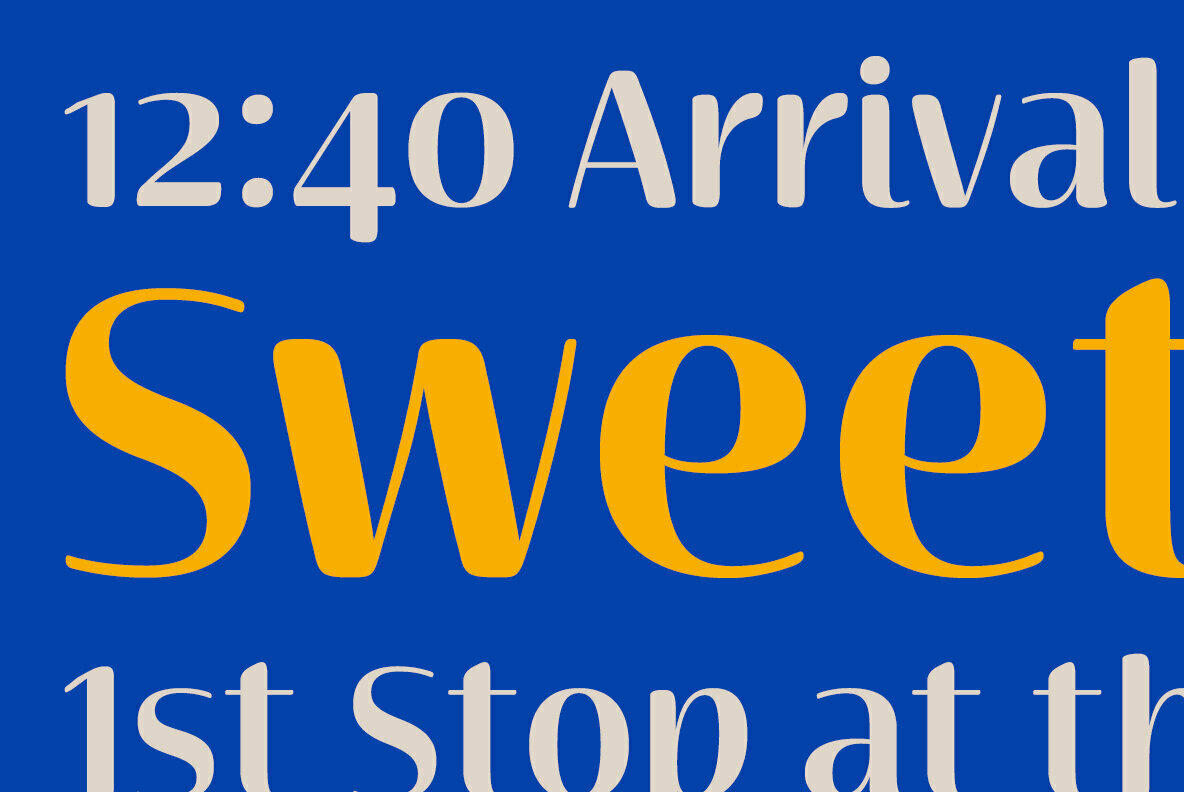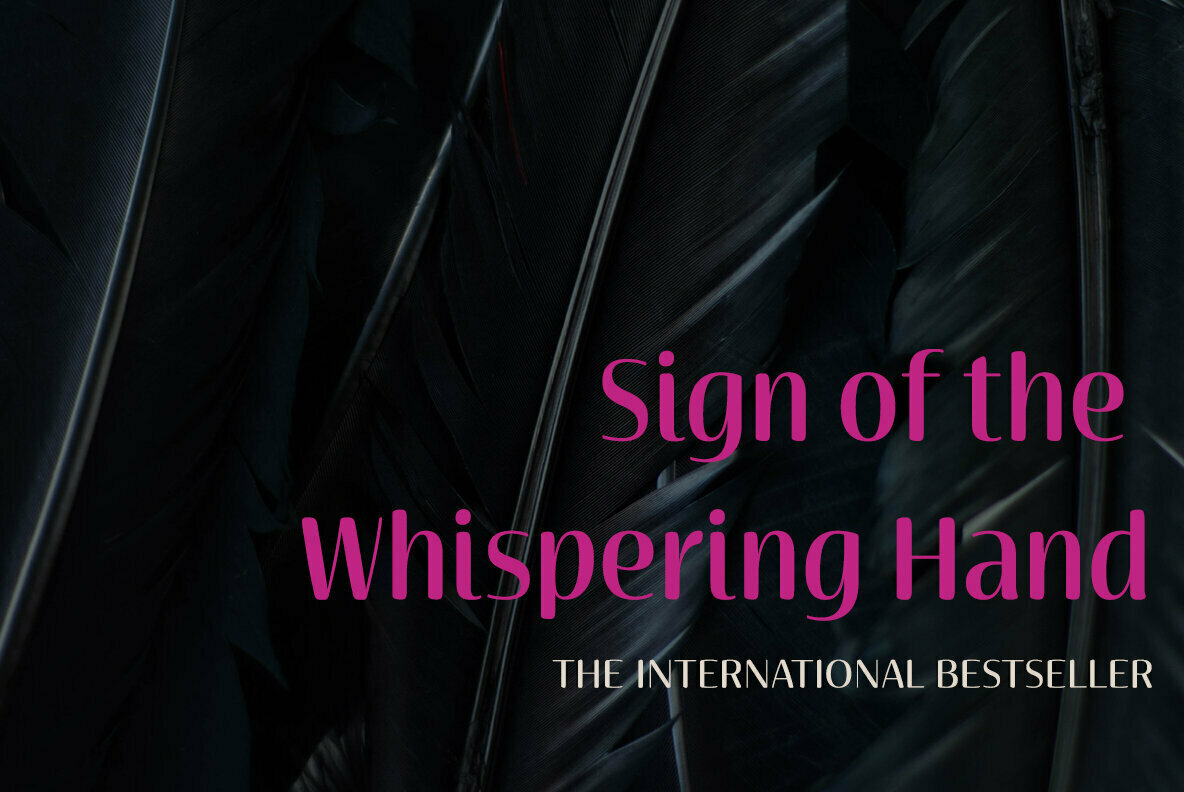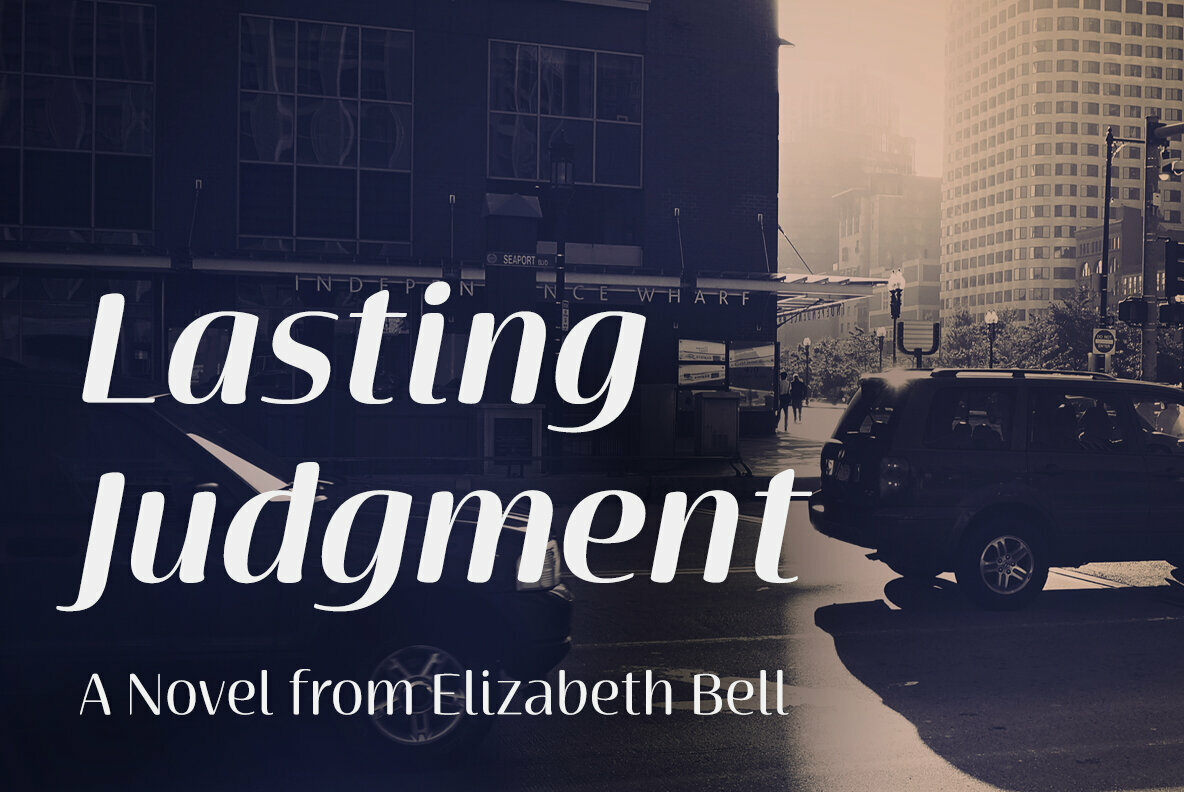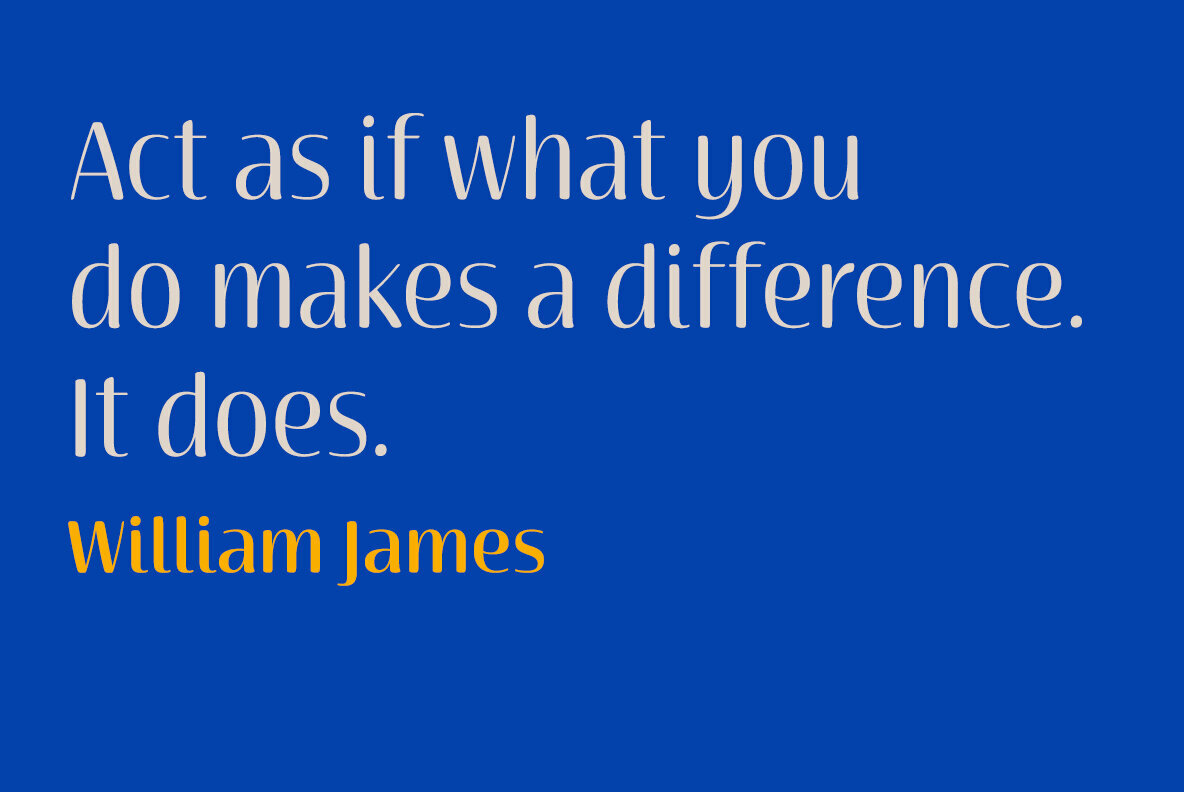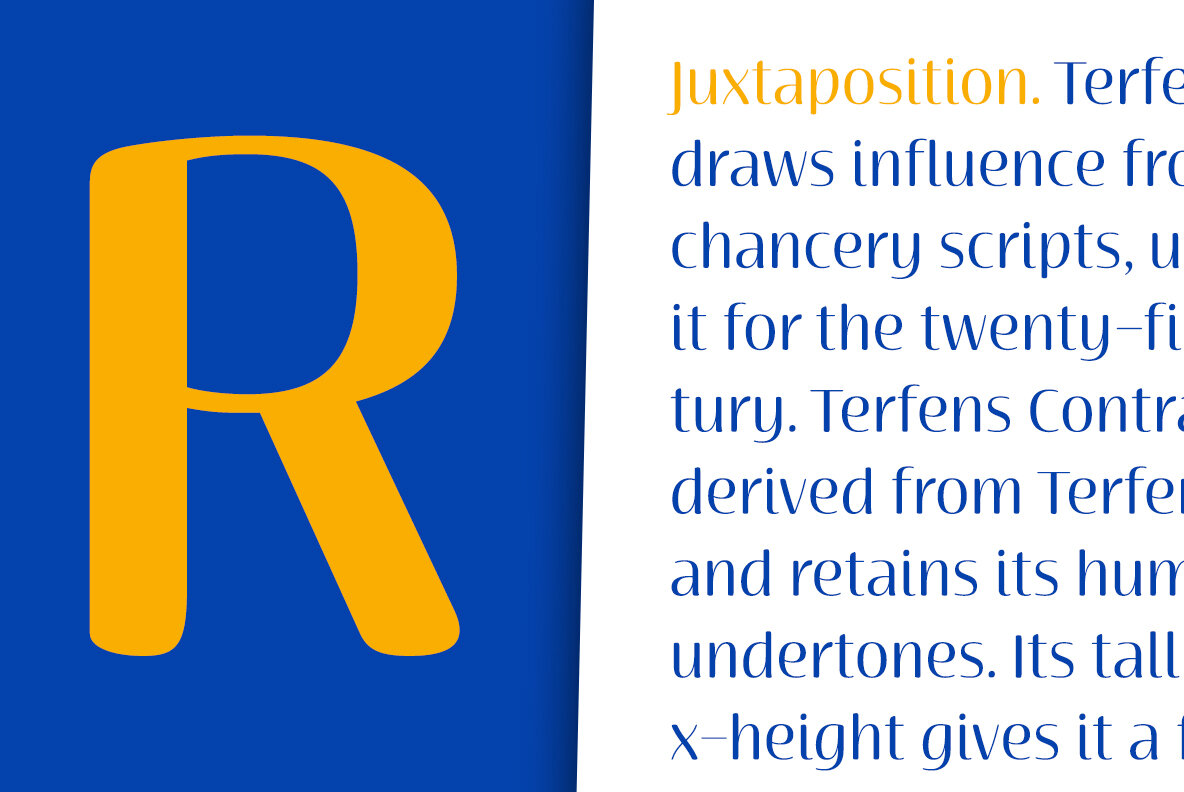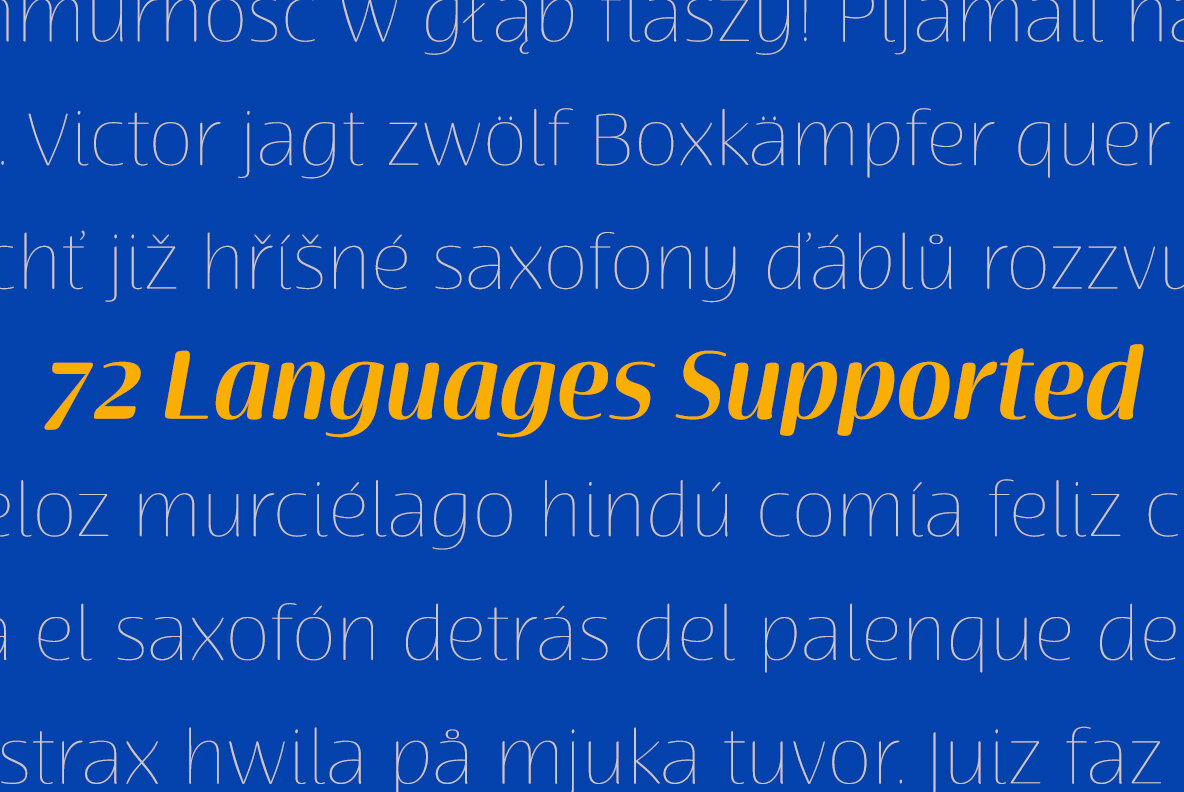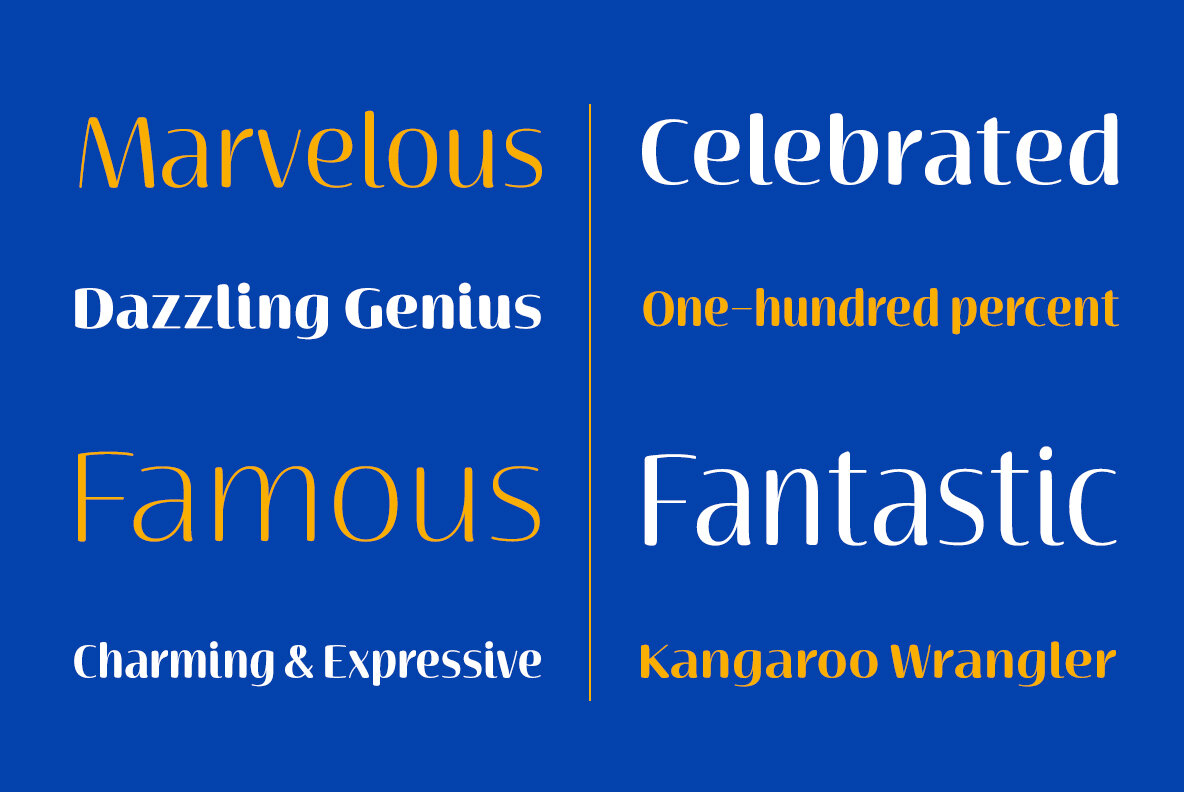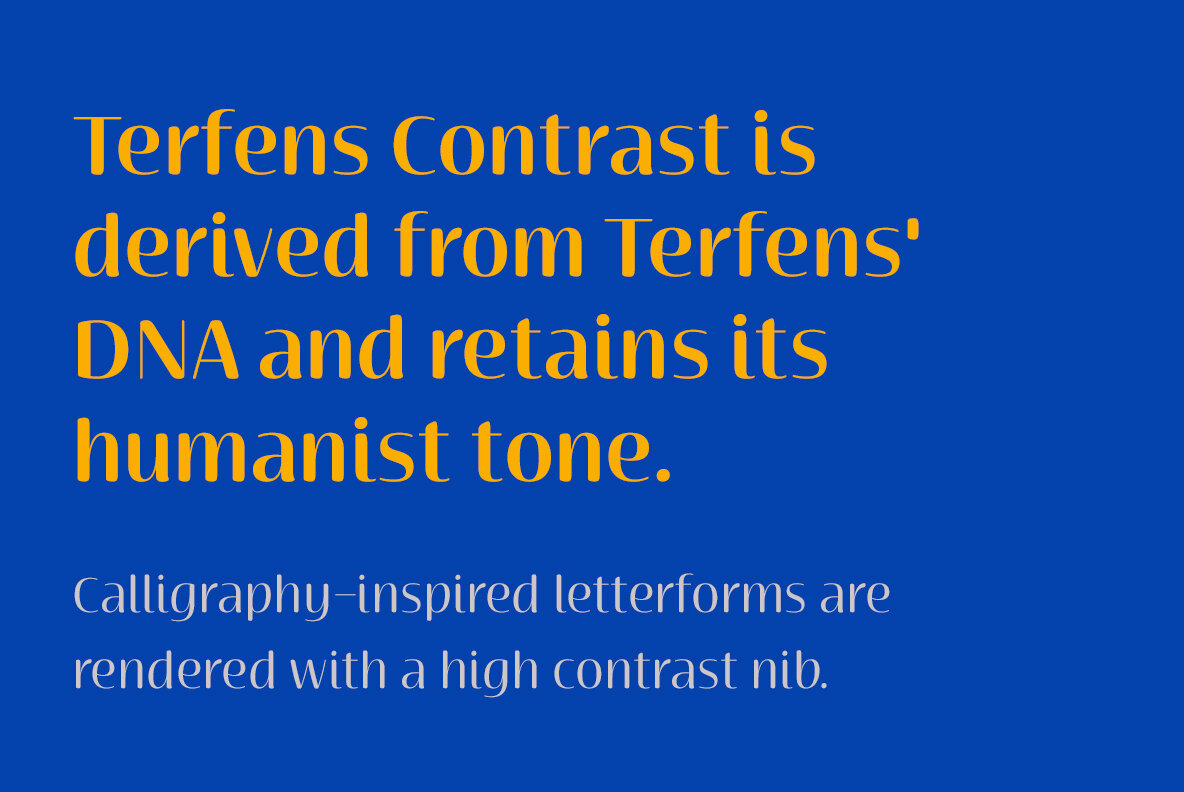
Terfens Contrast Font
• Recommended uses: modern branding and logo design, powerful editorial design, exciting packaging, and a wide range of additional jobs.
• 54 font styles, including eight weights, eight italics, and three widths.
• Each weight has 500+ glyphs.
Useful Opentype features include: Access All Alternates, Discretionary Ligatures, Denominators, Fractions, Kerning, Standard Ligatures, Lining Figures, Numerators, Oldstyle Figures, Ordinals, Scientific Inferiors, Subscript and Superscript.